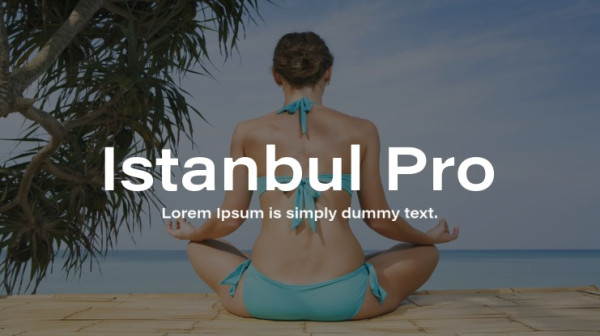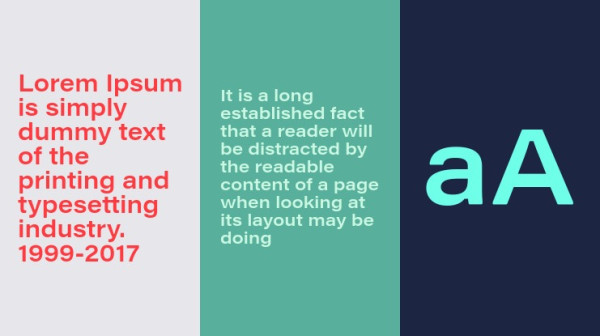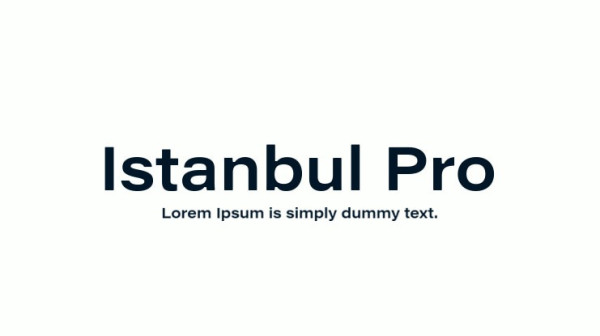
Istanbul Pro Font, is a sans serif stunning when combined or separately. This sans serif font style is legible and stunningly designed.
Istanbul Pro Font
| Designer Name: | John Mater |
| Classification: | Sans Serif Fonts, Style / Aesthetic Fonts |